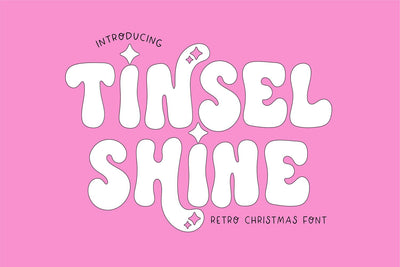
Tinsel Shine Christmas
"Tinsel Shine" a Sparkling Retro Christmas font
Tinsel Shine is perfect for your holiday projects. Use it for Christmas cards, winter crafts for decor and more! This font includes numbers, basic punctuation and intl characters! Find the sparkly characters in your glyph panel/character map.